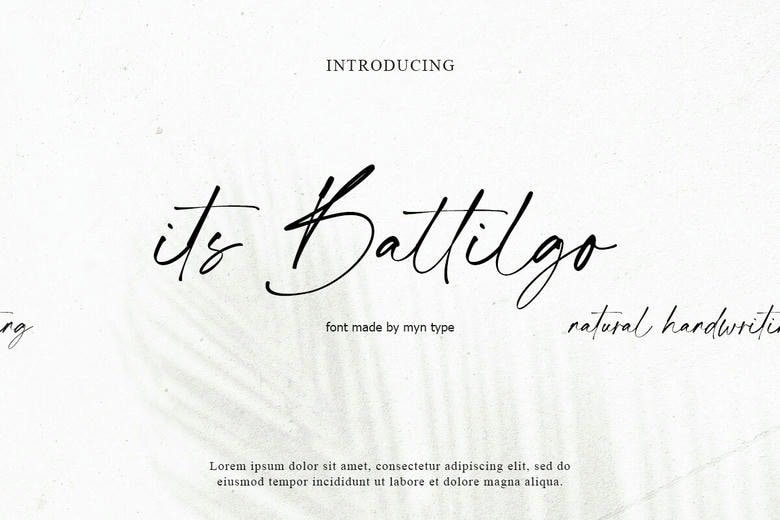
Its Battilgo Font
Its Battilgo is a pretty handwriting font inspired by elegant and classy writing with elegant curves. Great for invitations, logos and branding, it gives more of a private and elegance feel and look to it. It’s easy to understand how this font’s thin lines give your projects warmth and creativity.
Its Battilgo Handwritten Script Font